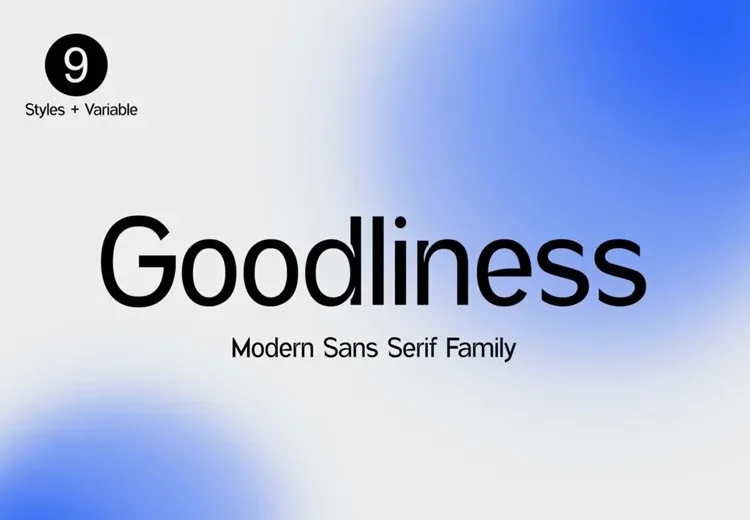
Goodlinest Font Family
Goodlines Font is a sleek and modern sans serif typeface that exudes elegance and simplicity. Its clean and versatile design makes it perfect for a variety of uses, including stationery, logos, wedding invitations, typography quotes, magazine or book covers, website headers, and branding. Whether you’re aiming for a refined look or something more bold, Goodlines can elevate your projects with a professional touch.
This font is also ideal for fashion-related branding or editorial design, offering a balance between androgenic and gynoid aesthetics. Its modern appeal makes it adaptable to different creative contexts, providing flexibility for both masculine and feminine visual elements.
With its minimalist approach and stylish appearance, Goodlines brings a sense of sophistication to any design, making it suitable for projects that demand clarity and class. It’s a great choice for those looking to create polished and contemporary visuals.